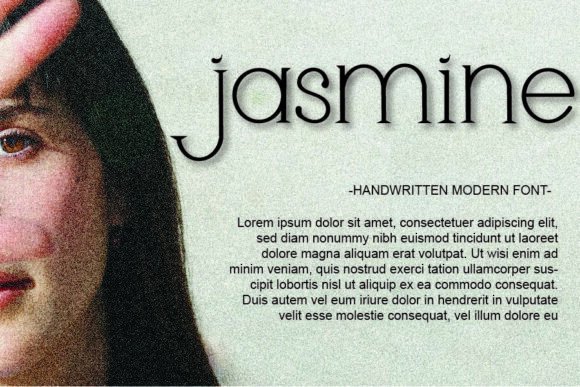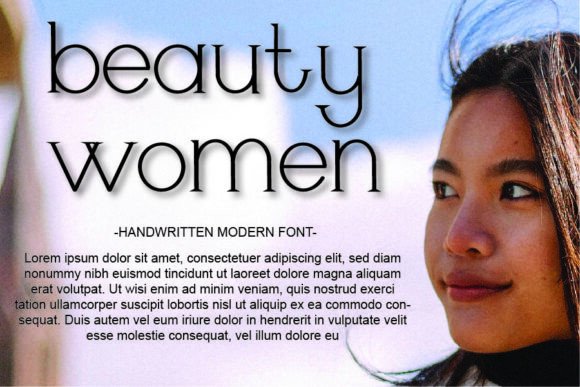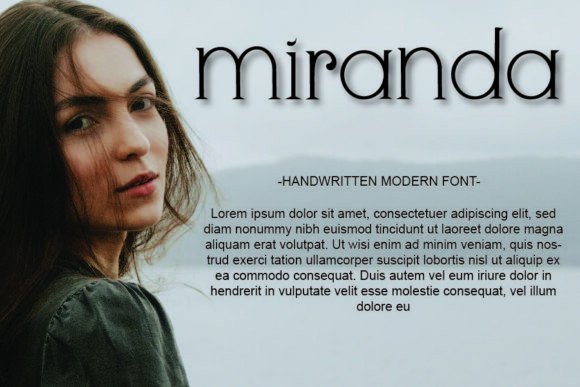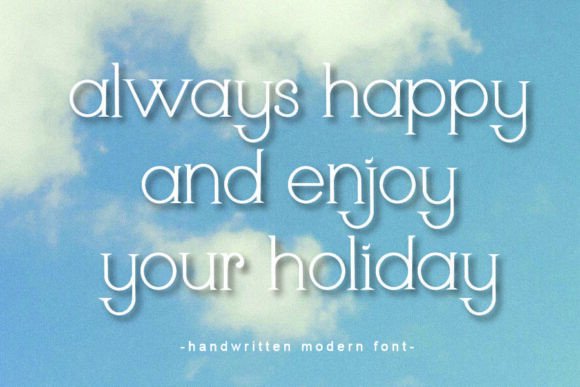
Ethereal Font: Elevate Your Designs with Elegance and Sophistication
Step into the future with Ethereal, an indulgently elegant font that delicately threads each word together with sophisticated thin lines. Imbued with a modern aesthetic and a whisper of luxury, Ethereal breathes a breath of opulence into any creative endeavor. In this article, we’ll explore the stunning charm of Ethereal and how it can enhance your artistic expressions, allowing you to elevate your projects to soaring heights of perfection.
The Essence of Ethereal
Ethereal is more than just a font – it’s an experience. Its delicate, thin lines weave together to create a sense of sophistication and refinement, perfect for designers and crafters looking to add a touch of luxury to their work. Whether you’re creating a brand identity, crafting a website, or designing a marketing campaign, Ethereal’s modern aesthetic and elegant feel make it the perfect choice.
Unleashing the Power of Ethereal
So, how can you harness the power of Ethereal to elevate your designs? Here are a few ways to get started:
• Branding: Use Ethereal to create a luxurious brand identity that exudes sophistication and refinement. From logos to business cards, Ethereal’s elegant feel will help you establish a strong brand presence.
• Web Design: Add a touch of elegance to your website with Ethereal. Its delicate lines and modern aesthetic make it perfect for headings, titles, and other design elements.
• Marketing Materials: Use Ethereal to create stunning marketing materials, such as brochures, flyers, and posters. Its sophisticated feel will help you stand out from the competition and leave a lasting impression.
The Benefits of Using Ethereal
So, why choose Ethereal over other fonts? Here are just a few benefits of using this stunning font:
• Unique and Memorable: Ethereal’s delicate lines and elegant feel make it a unique and memorable font that will help you stand out from the competition.
• Versatile: Ethereal is a versatile font that can be used in a variety of design applications, from branding and web design to marketing materials and more.
• Easy to Read: Despite its delicate lines, Ethereal is surprisingly easy to read, making it perfect for body text as well as headings and titles.
Tips for Using Ethereal Effectively
To get the most out of Ethereal, here are a few tips to keep in mind:
• Use it sparingly: While Ethereal is a stunning font, it’s best used sparingly. Use it for headings, titles, and other design elements to add a touch of elegance to your work.
• Pair it with other fonts: Ethereal pairs well with a variety of other fonts, from bold and modern to elegant and refined. Experiment with different pairings to find the perfect combination for your design.
• Experiment with colors: Ethereal looks stunning in a variety of colors, from metallic and bright to muted and pastel. Experiment with different colors to find the perfect look for your design.
Font Name Ethereal Font
Author Ts_store
Embark on a journey with Ethereal and watch how its quintessential beauty dramatically unfolds. With its delicate lines, modern aesthetic, and elegant feel, Ethereal is the perfect font for designers and crafters looking to add a touch of luxury to their work. Whether you’re creating a brand identity, crafting a website, or designing a marketing campaign, Ethereal is sure to elevate your projects to soaring heights of perfection.